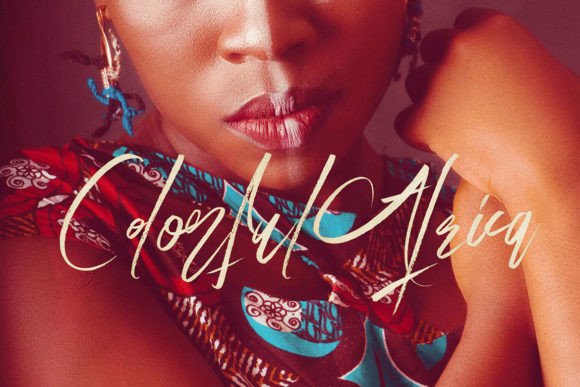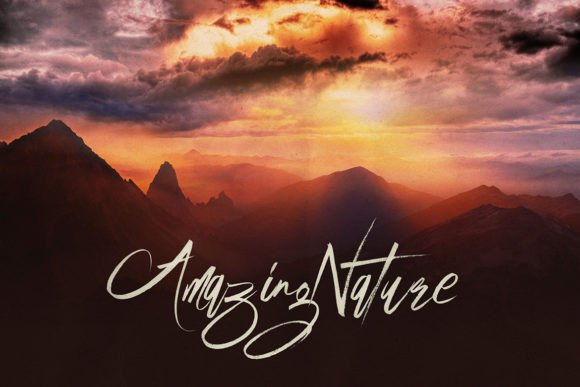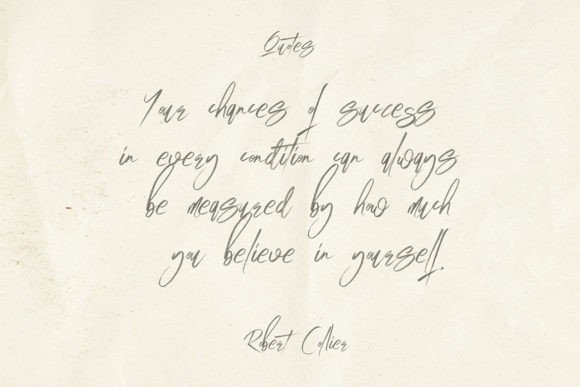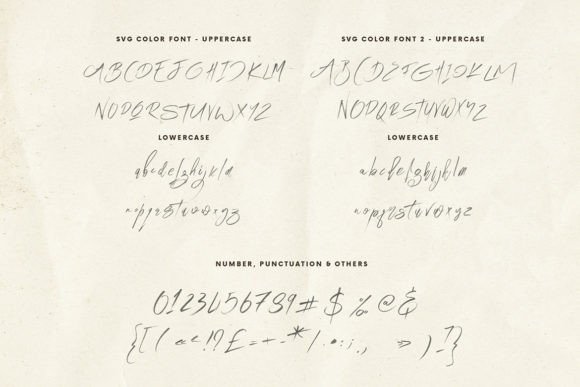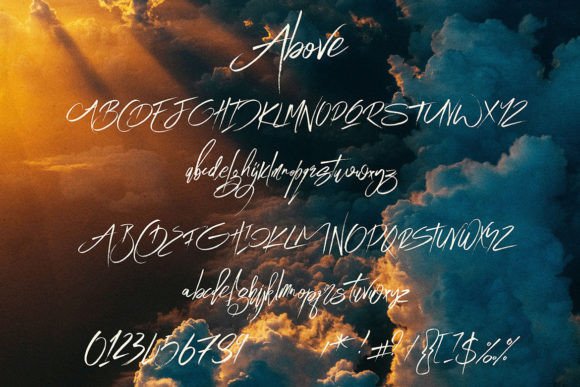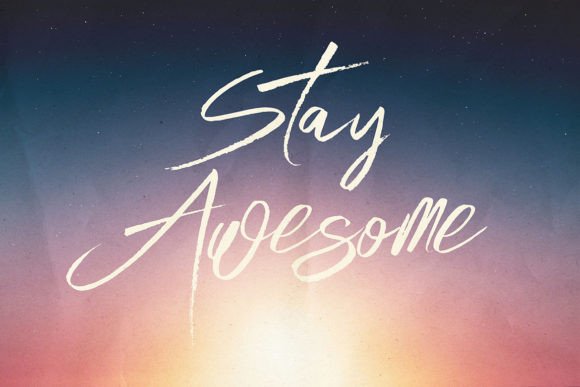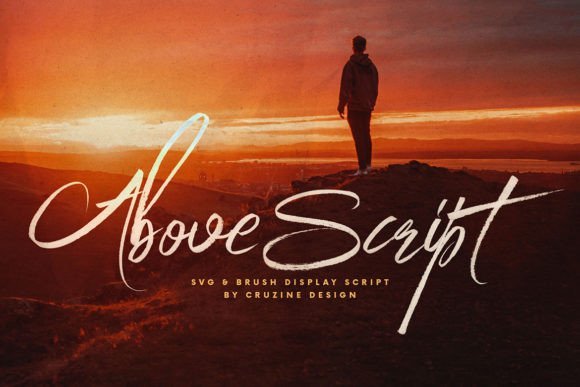
The Perfect Script: Elevating Your Designs with Above Font
There’s nothing quite like the rush of creativity that comes when you’re about to design a new project. The blank page stares back at you, waiting for your ideas to come to life. And then, it hits you – the perfect font that will elevate your design from ordinary to extraordinary. For many designers, this moment is what makes all the hard work worth it.
Enter Above Font, a modern thin brush script font that’s been making waves in the design community. With its fluid strokes and elegant letterforms, Above Font is the perfect choice for branding, packaging, and editorial design that demands a contemporary and refined aesthetic. Whether you’re working on a luxury brand or a high-end publication, Above Font is sure to impress.
As a designer, you know that the right font can make all the difference. And Above Font is no exception. Its subtle variations in stroke weight and cursive letterforms make it a valuable addition to any designer’s toolkit. With Above Font, you’ll be able to create designs that are truly above the rest – and that’s exactly what you’re looking for.
Above Font Key Features
- Unique Characteristics: Features a unique blend of modern and traditional design elements, with intricate details and ornate flourishes.
- Language Support: Supports a wide range of languages, including Latin, Cyrillic, Greek, and many others, making it suitable for global applications.
- Font Weight and Style: Offers a range of font weights and styles, including light, regular, bold, and italic, to suit different design needs.
- Kerning and Ligatures: Includes advanced kerning and ligature features to ensure optimal spacing and readability.
Above Font Review
As a designer, I’ve had the chance to work with many fonts, but Above Font is one that caught my attention. Here’s my honest review.
- Unique style: Above Font has a distinctive and modern design that’s perfect for making a statement.
- High legibility: The font is highly legible, making it easy to read even in small sizes.
- Wide range of weights: The font comes in a range of weights, from light to bold, giving you plenty of options for your design.
- Limited language support: Above Font may not support all languages, which could be a problem if you need to use it for multilingual content.
- No italics: The font doesn’t have italics, which could be a limitation for designs that require italic text.
Overall, I think Above Font is a great choice for designers who want a modern and stylish font. While it may have some limitations, its unique style and high legibility make it a great option for many designs. With a little creativity, you can work around its limitations and create some amazing designs.
Tips: Use Above Font to create a unique and modern look for your text. Experiment with different font sizes and colors to get the most out of it.
Tips: Use Above Font to add a touch of elegance to your designs. Combine it with other fonts to create a unique typographic style.
Tips: Use Above Font to create a professional-looking document or presentation. Use it to highlight important information or to add visual interest to your text.
Above Font is perfect for:
- Modern logos and branding
- Editorials and publications
Remember to always experiment with different font sizes, colors, and combinations to get the most out of Above Font.
Typography Alternatives to Above Font
Playfair Display is an elegant and luxurious serif font suitable for formal and high-end designs. It features intricate details and ornate flourishes. Use it for titles, headings, and other prominent text elements where you want to convey sophistication and refinement.
Compared to Above Font, Playfair Display has a more dramatic and ornate feel, making it better suited for high-end fashion, luxury brands, and formal invitations. While Above Font is versatile and works well in various contexts, Playfair Display is more specific to formal and elegant designs.